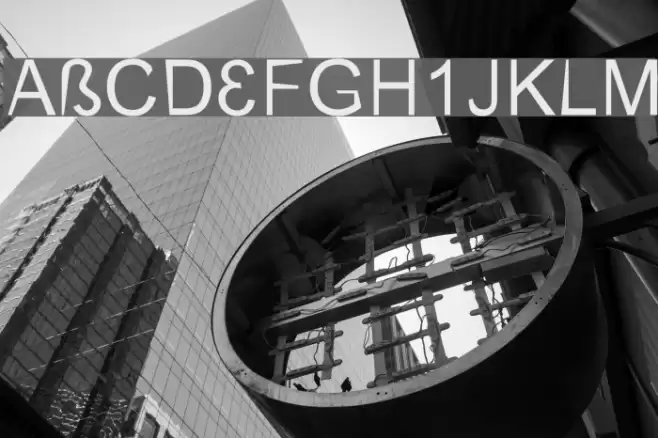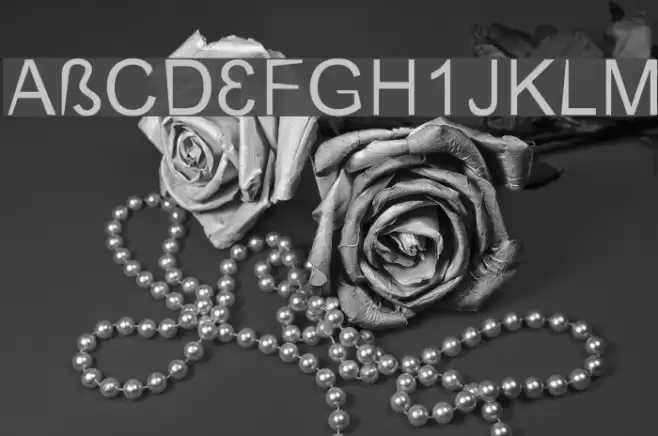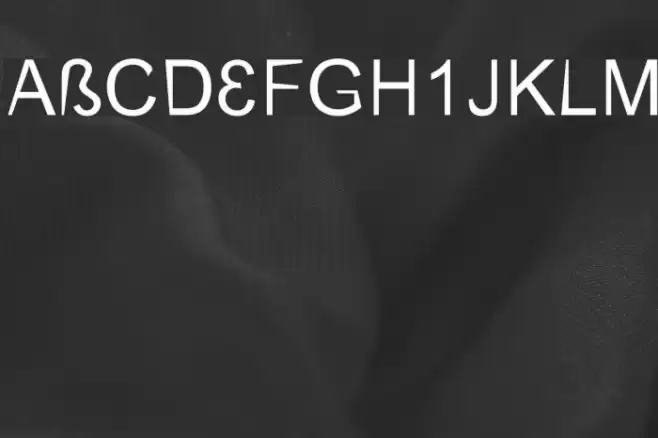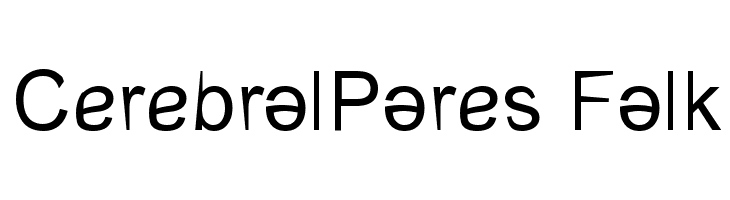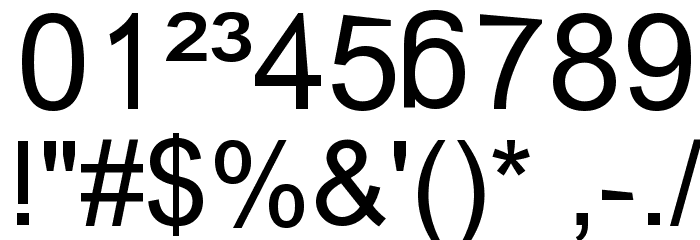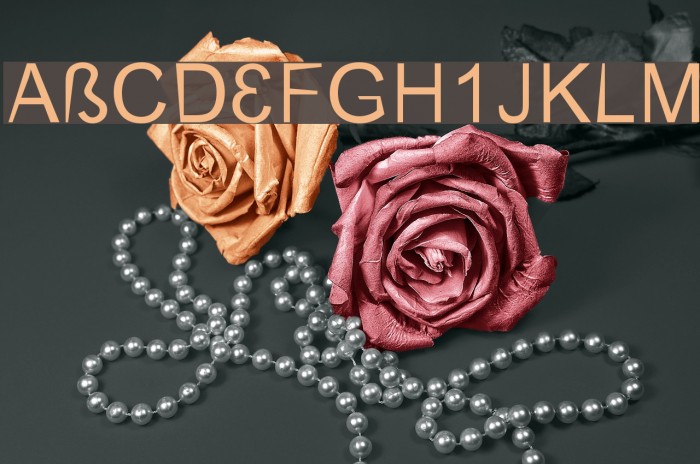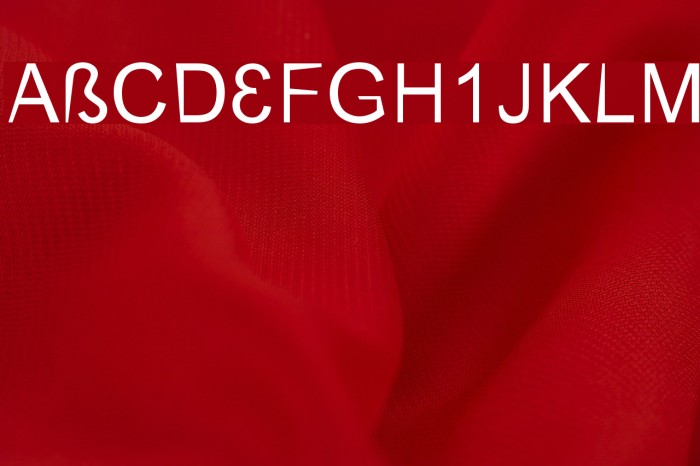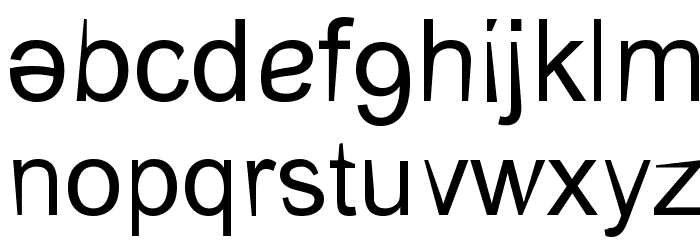
CerebralPares Falk Font
CerebralPares Falk Description
This font presents a clean and modern sans-serif style with a geometric structure. The characters are well-proportioned, featuring a uniform stroke width that contributes to its legibility. The uppercase letters are bold and assertive, while the lowercase letters maintain a consistent height, enhancing readability. The numerals are clear and distinct, making them suitable for various applications. Special characters are included, providing versatility for different contexts. The overall design is minimalistic, making it ideal for contemporary projects.
A modern, geometric sans-serif font with clean lines and uniform stroke width from Decorative fonts.
- Proposed Projects: Ideal for branding, web design, advertising, and editorial projects where clarity and modernity are essential.